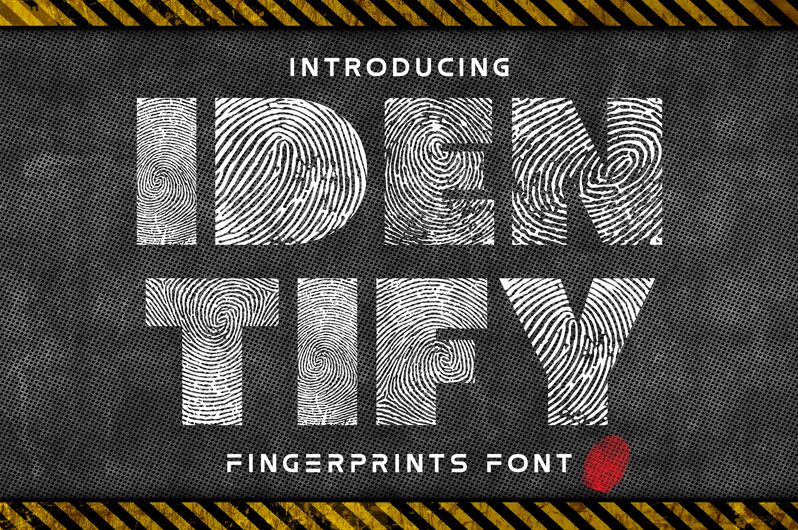
Identify font is an intricate, textured decorative font designed and published by 177Studio. Inspiration comes from fingerprints which explain the texture and pattern of the text characters. The fingerprint texture smartly embeds into each letter which makes them truly unique and original. Whether standing alone or being part of a sentence, this bold display font carries the idea of individuality to whoever reads it.